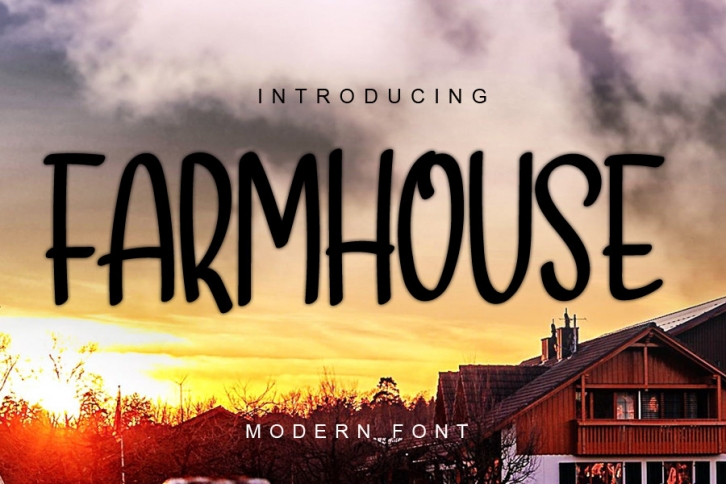
Farmhouse is a fresh and adaptable handwritten font. It is ideal for a variety of design purposes such as Youtube banners, cover logo mockups, wedding invitations, Id cards, flyer, crafts. By using this font your business will flourish.